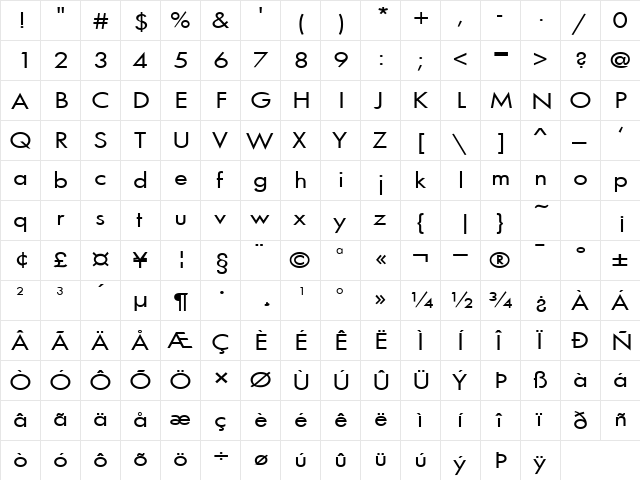
Beau-Extended Normal
Design Context for Beau-Extended Typeface
Beau-Extended takes a measured approach to typography — its balanced proportions and neutral character make it a reliable workhorse for both digital and print work.
Pro Tip: Use Beau-Extended in both headline and body roles to test its range before committing to a single application.